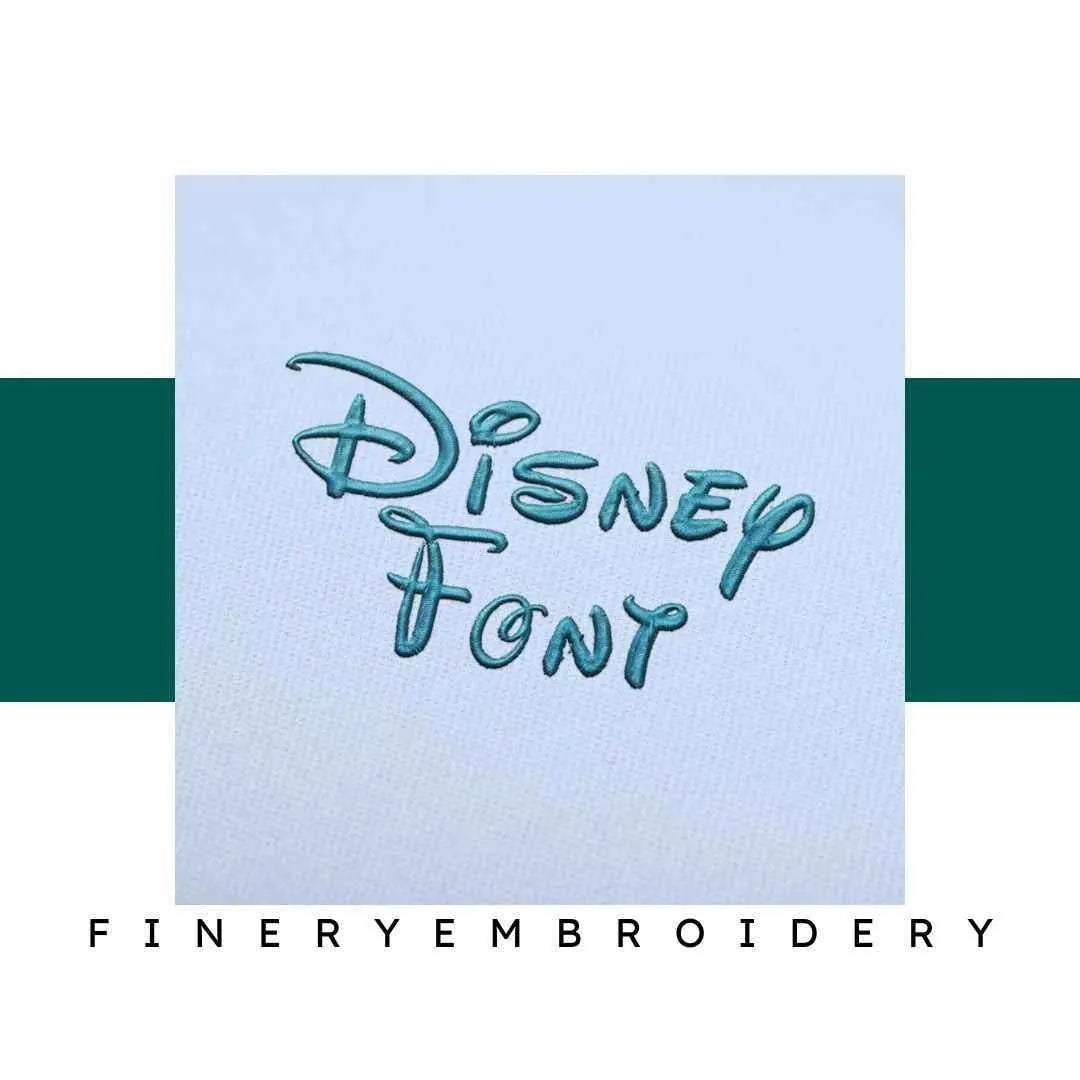
Unleash your creativity with our enchanting Disney Embroidery Alphabet Font Set, where nostalgia meets elegance, perfect for every embroidery enthusiast!
Introducing the Disney Embroidery Alphabet Font Set - your gateway to adding a sprinkle of Disney magic to all your embroidery projects! This font set is meticulously crafted to bring the whimsical charm of Disney to life, whether you are personalizing clothing, creating delightful home decor, or designing unique accessories. Elevate your projects with a touch of beloved Disney elegance!
The Disney Embroidery Alphabet Font Set captures the iconic style of Disney lettering that is both instantly recognizable and adored across generations. Each character is designed with exceptional detail, making your creations not just projects, but unforgettable experiences filled with nostalgia. Whether you’re creating a gift for a friend or a special keepsake for yourself, this font adds an extraordinary touch that will be cherished.
This versatile font set opens up a world of creative possibilities! Imagine adorning a child’s bedroom with their favorite Disney characters, or crafting personalized clothing that tells a story. The options are endless: from monogramming towels and blankets to enhancing tote bags with personalized names. Let your imagination guide you as you transform everyday items into enchanting treasures that will spark joy in any Disney fan's heart.